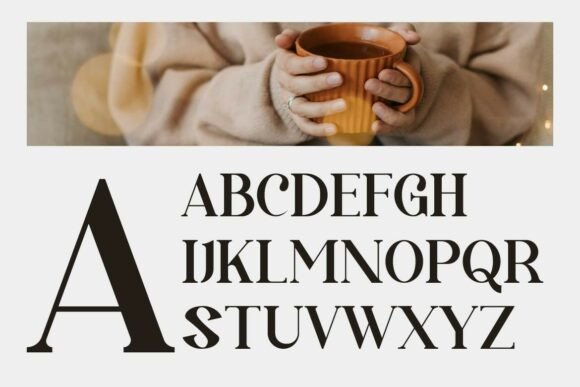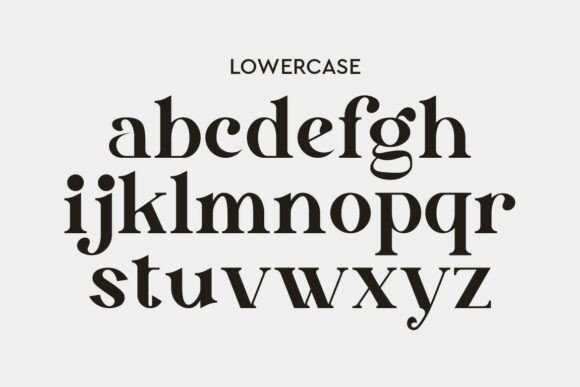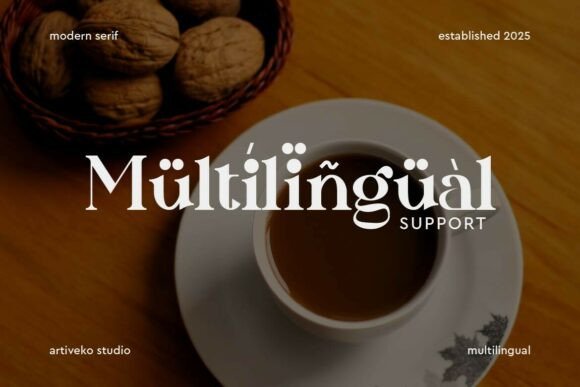
Introduction to Neonadelima Regular Font
Neona Delima is a modern serif font that blends refined elegance with bold character.
Designed by Artiveko Studio, this typeface showcases sculpted letterforms with distinctive curves and high contrast, making it an eye-catching choice for sophisticated branding and editorial work The sharp terminals and clean vertical stress give it a contemporary edge, while its graceful shapes retain a timeless appeal.